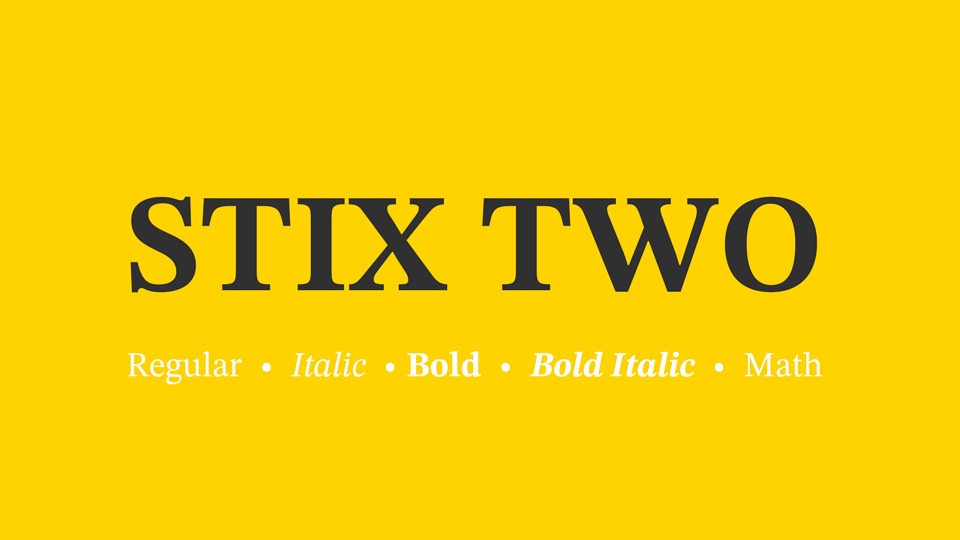
STIX Two Font Family
STIX Two Serif Font
This is serif font family with 8 styles. Inspired by vintage typefaces, but designed for modern purposes. They combine a comprehensive Unicode-based collection of mathematical symbols and alphabets with a set of text faces suitable for professional publishing. The fonts are available royalty-free under the SIL Open Font License.
Version 2 of the STIX fonts, now known as “STIX Two”, is a thorough revision undertaken by the renowned type house Tiro Typeworks Ltd. (https://www.tiro.com). The STIX Two fonts consist of one Math font, two variable text fonts (STIXTwoTextVF-Roman and STIXTwoTextVF-Italic), and eight static text fonts (Regular, Italic, Medium, Medium Italic, SemiBold, SemiBold Italic, Bold, and Bold Italic) derived from the variable fonts. Together, they provide a uniform set of fonts that can be used throughout the production process, whether that be a traditional print-only process, an entirely electronic one, or a combination of the two.